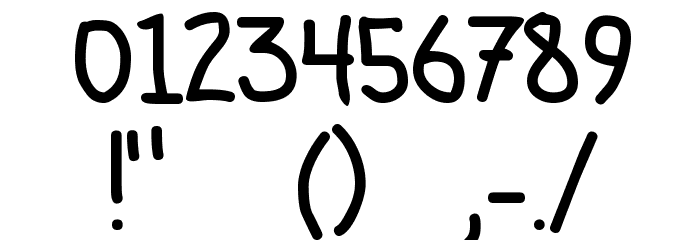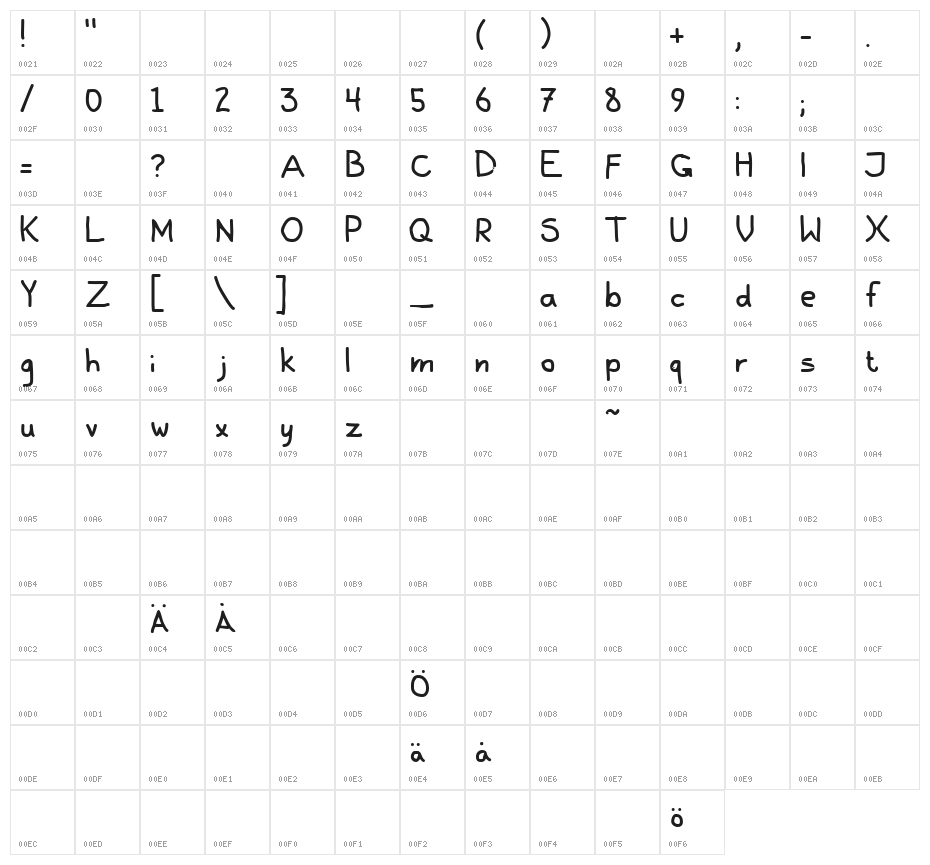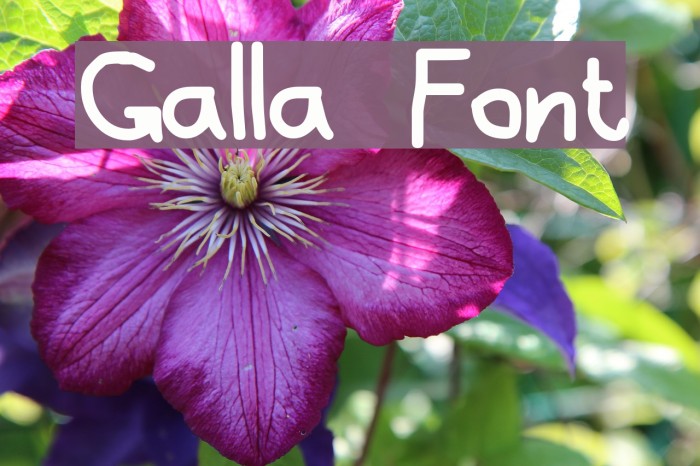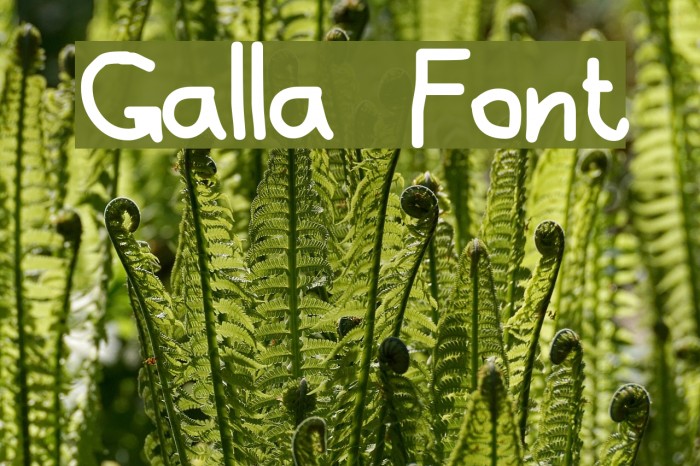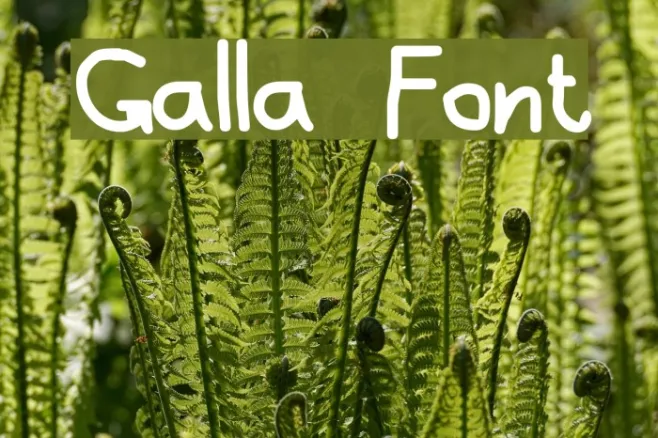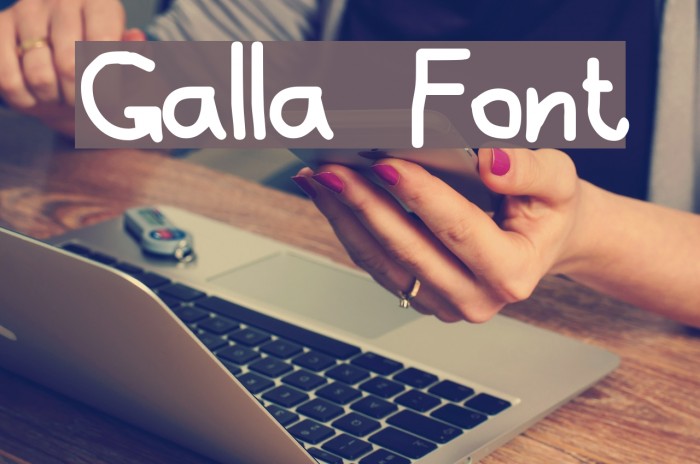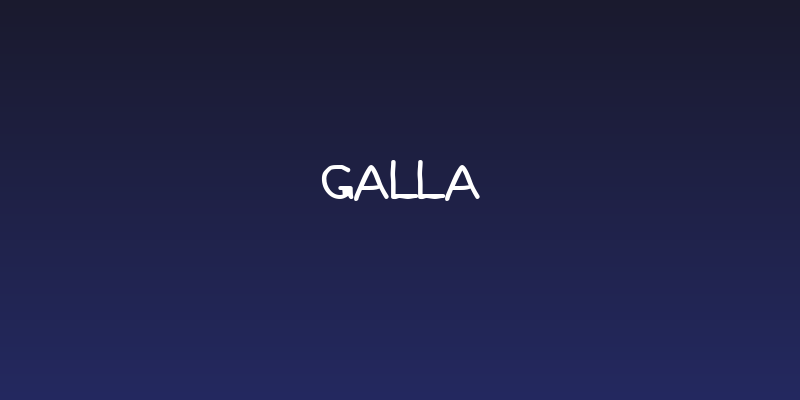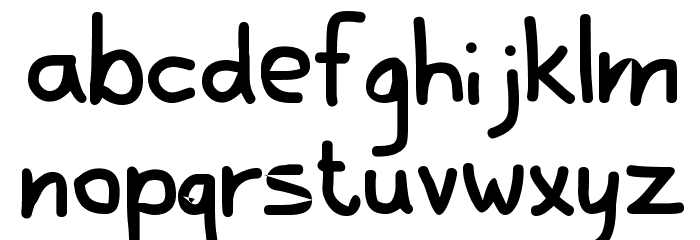
Galla Font
Galla Description
This font features a playful and informal handwritten style, characterized by its rounded and slightly irregular letterforms. The uppercase and lowercase letters maintain a consistent flow, giving a casual and approachable feel. The numerals and special characters complement the alphabet with the same whimsical touch. The strokes are uniform in thickness, providing a balanced appearance without high contrast. The overall design is friendly and engaging, making it suitable for projects that aim to convey warmth and personality.
| Use Case | Headlines, Informal text, Branding |
| Proposed Projects | Ideal for children's books, greeting cards, casual branding, and social media graphics. |